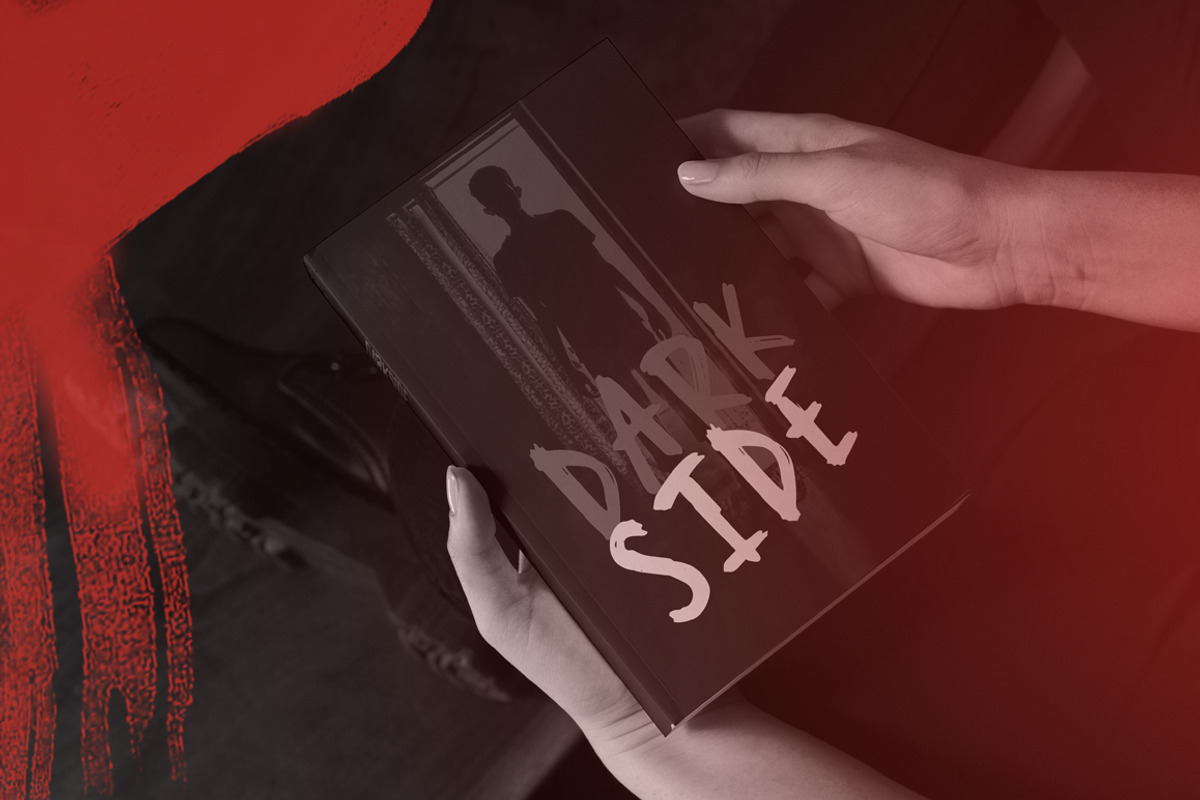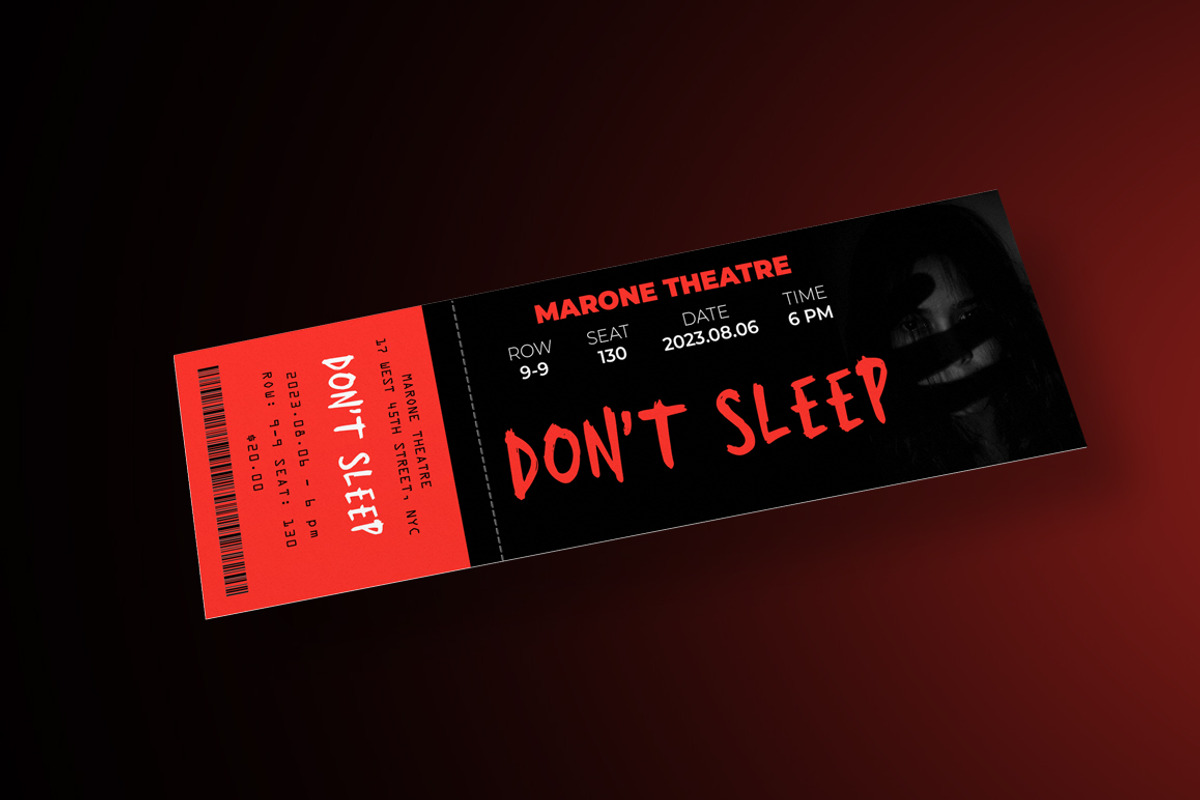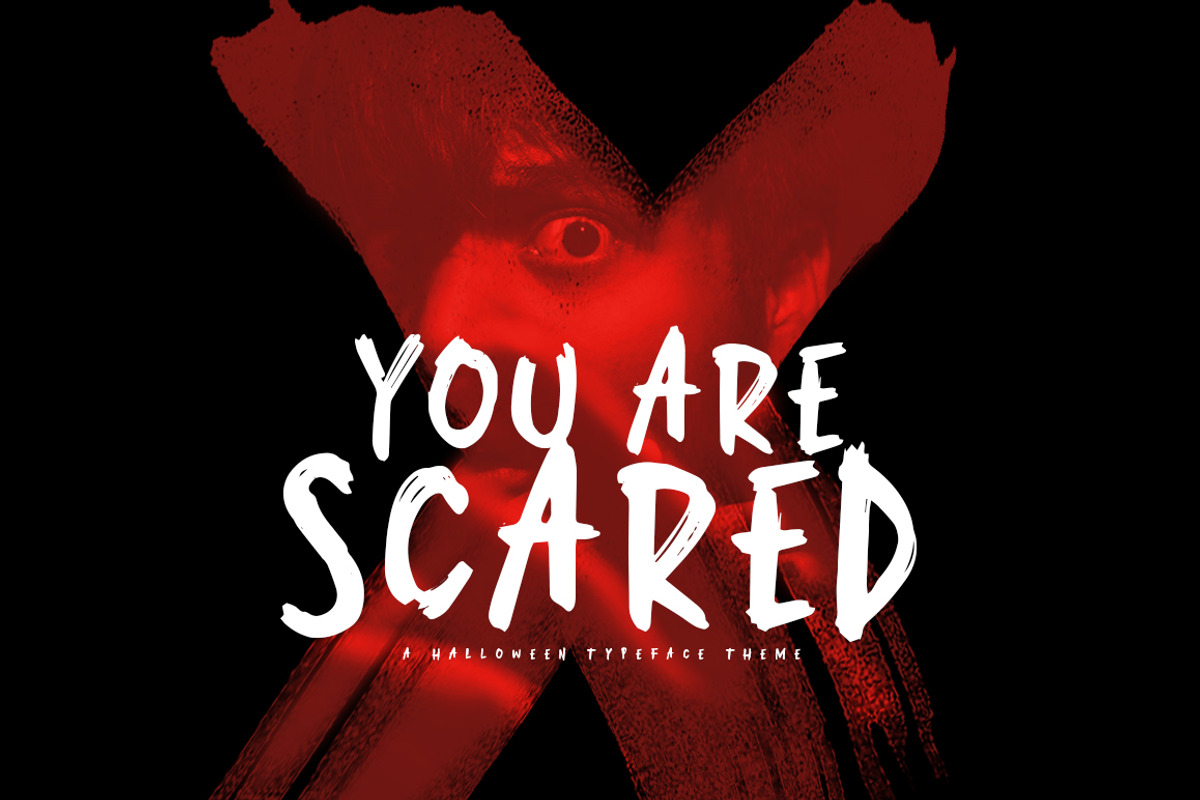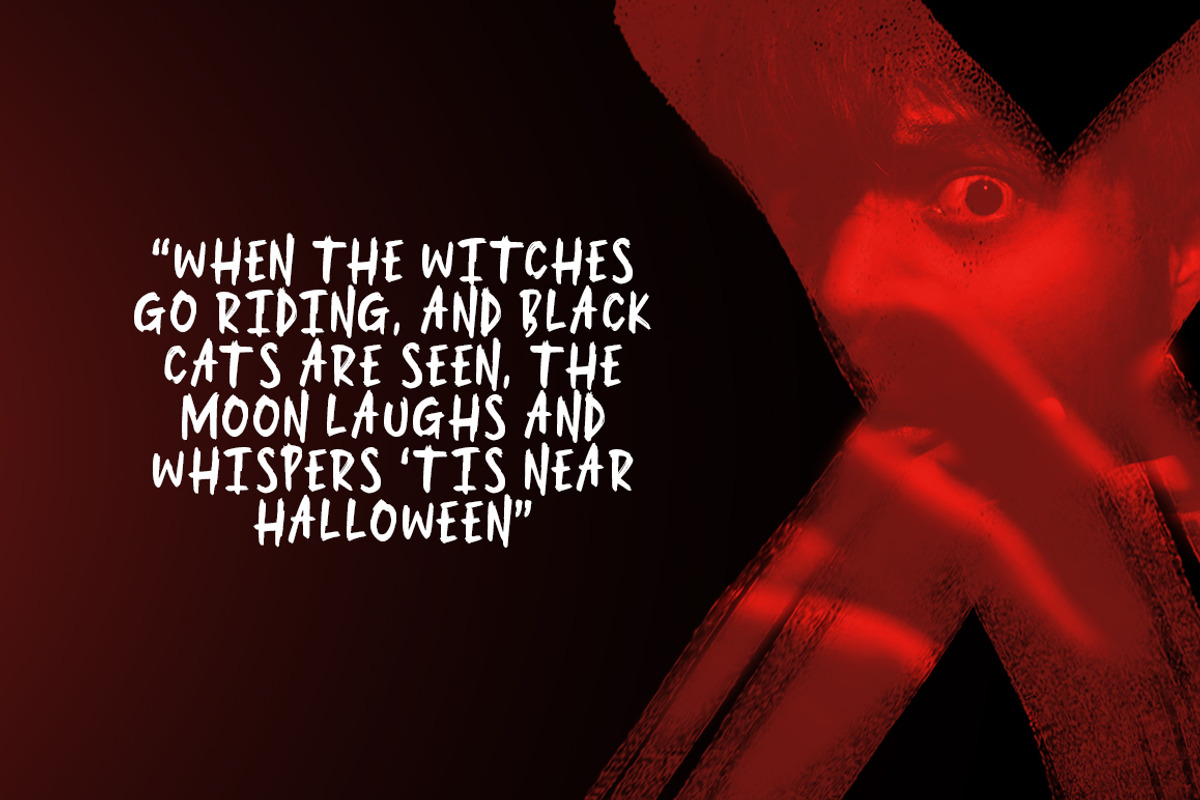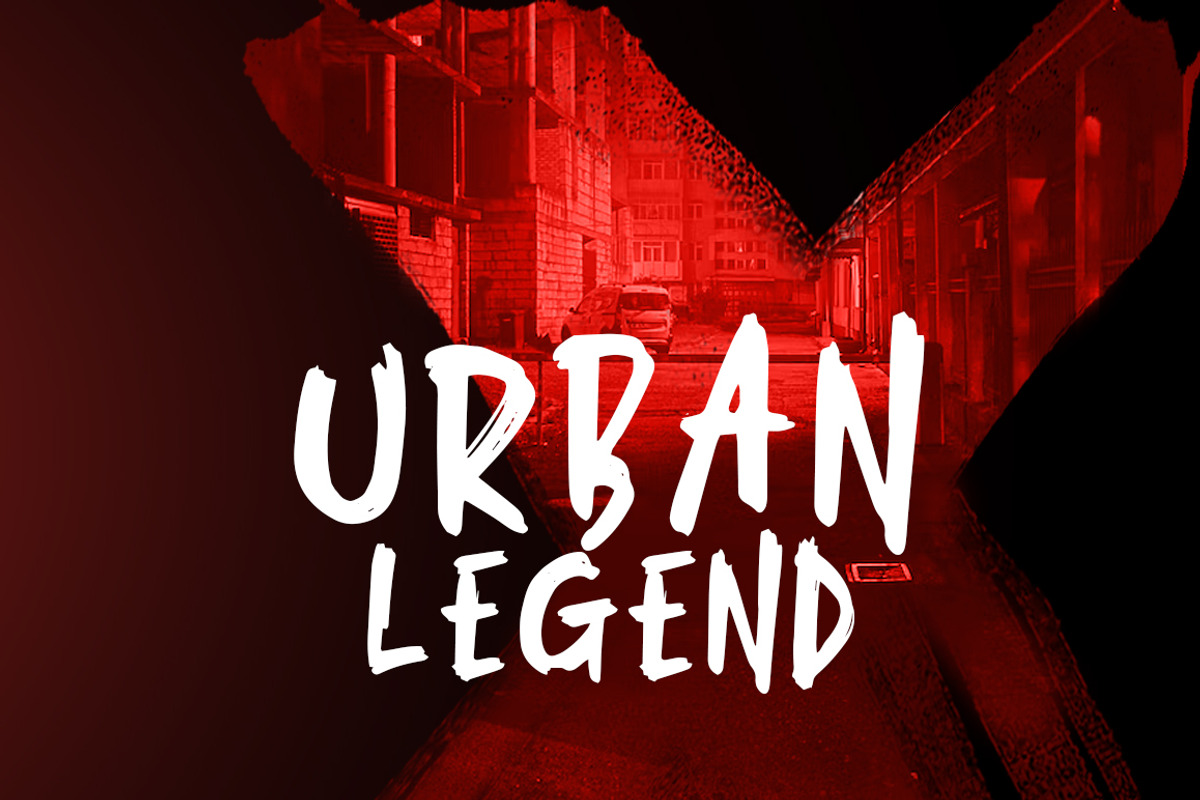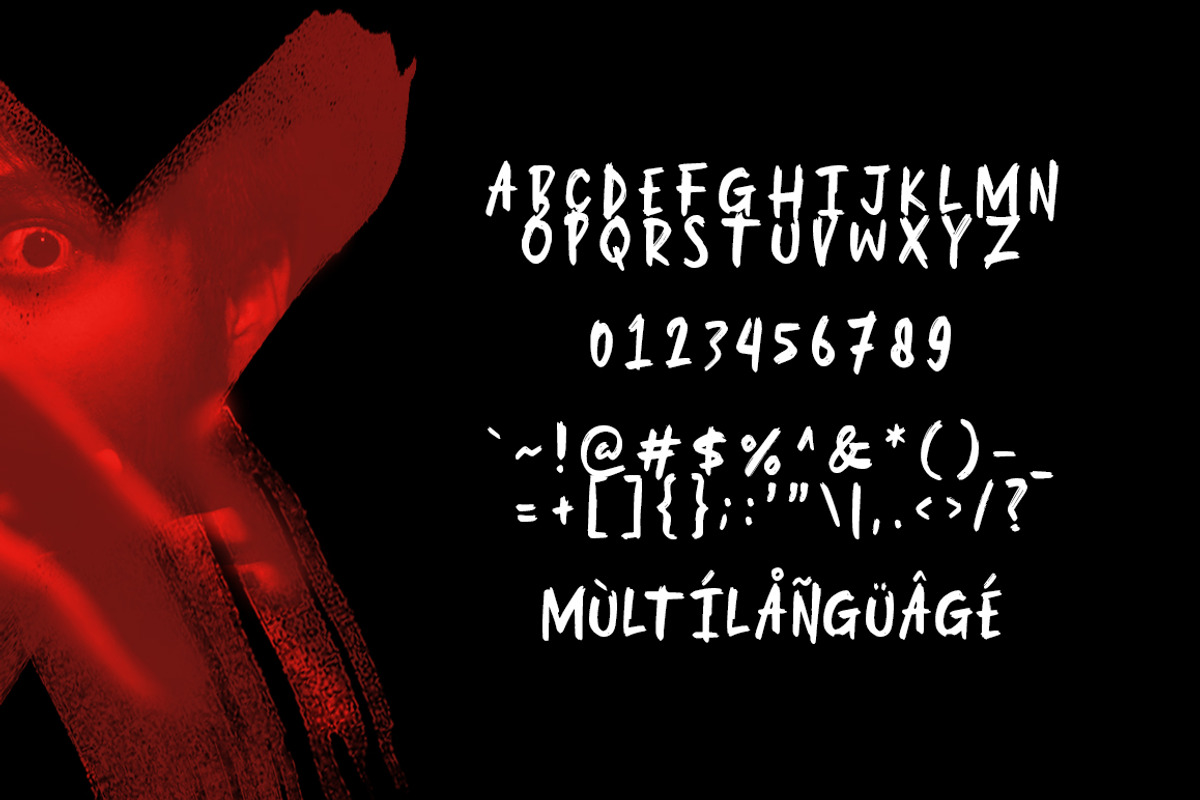
You Are Scared
You Are Scared a Handwriting horror font for your halloween project. You Are Scared font suitable for logo, branding, greeting card, branding, poster and any design that you create.